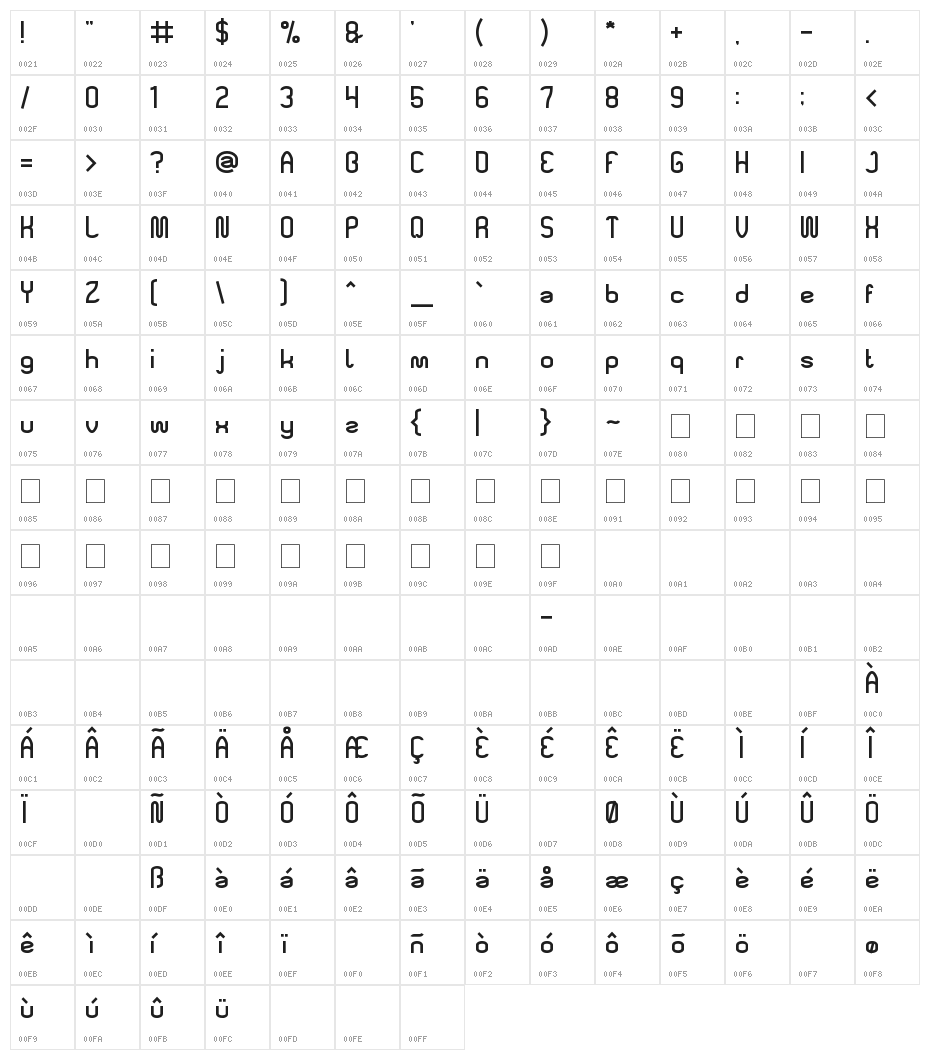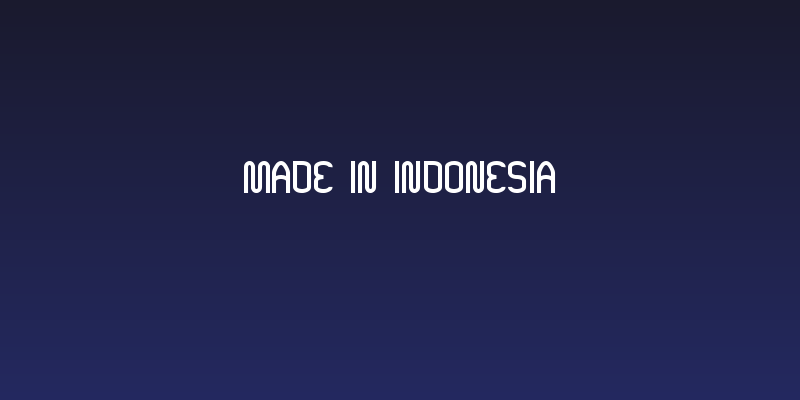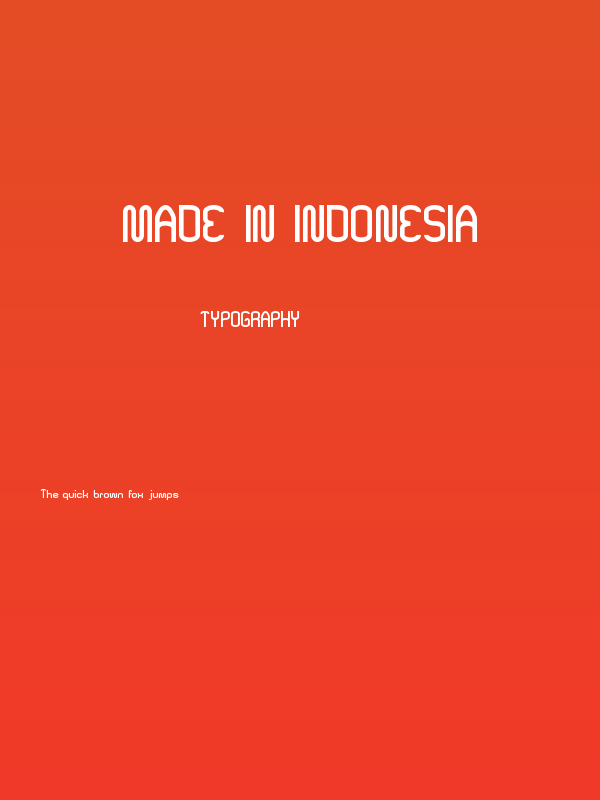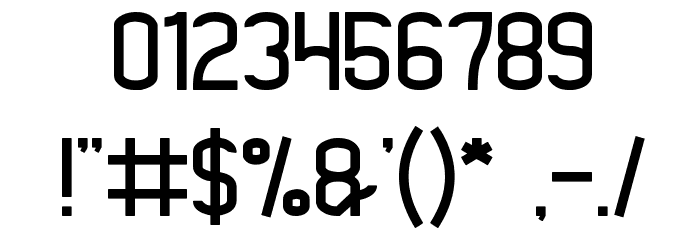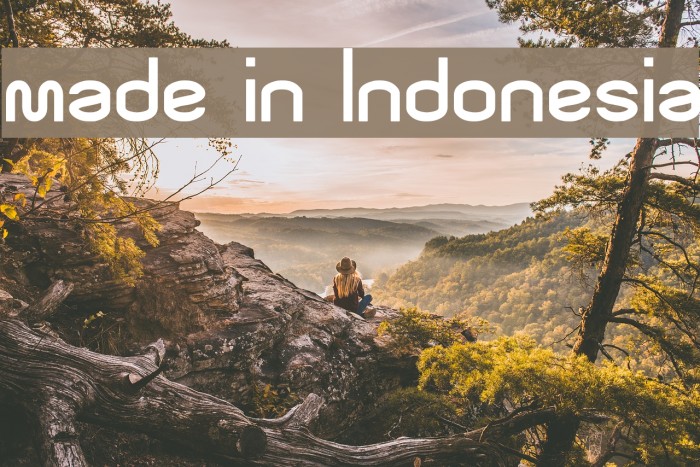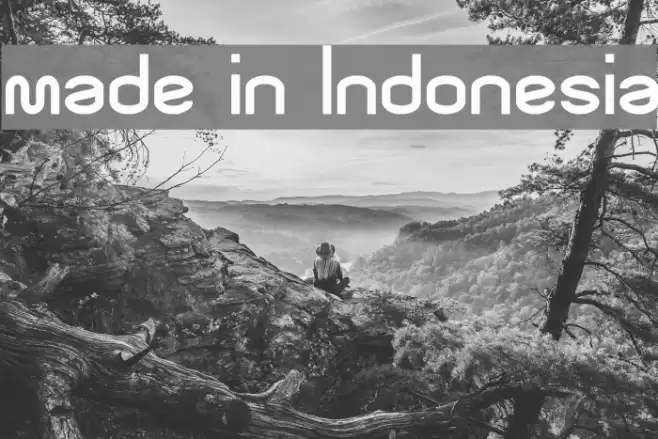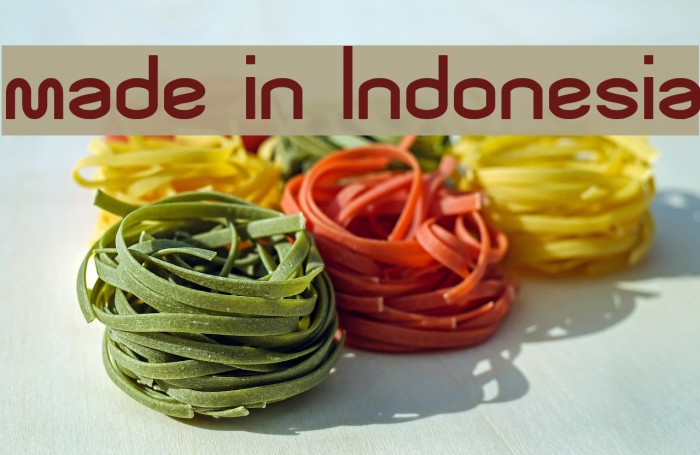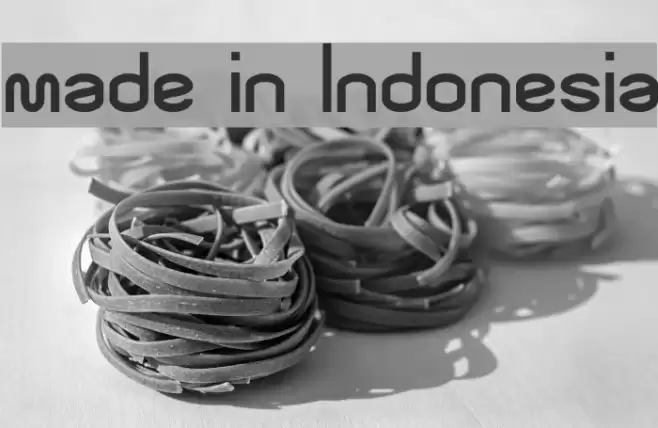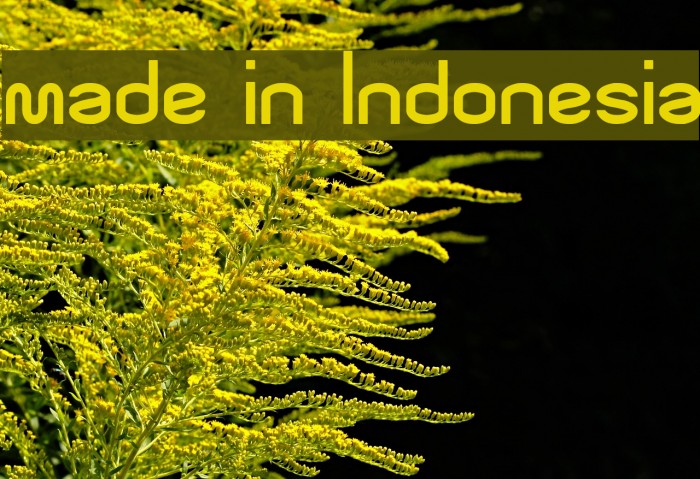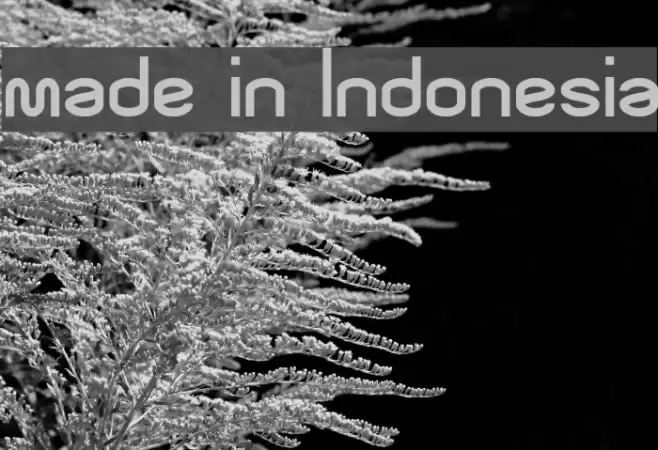
made in Indonesia Font
This font features a modern and playful design with rounded edges and a geometric structure. The uppercase letters are bold and uniform, while the lowercase letters maintain a consistent style with slight variations in height and width. The numerals are clear and easy to read, matching the overall aesthetic of the alphabet. Special characters are well-integrated, maintaining the same rounded and geometric style. This font's unique appearance makes it suitable for creative and contemporary projects.
| Proposed Projects | Ideal for branding, advertising, posters, and digital media where a modern and playful tone is desired. |